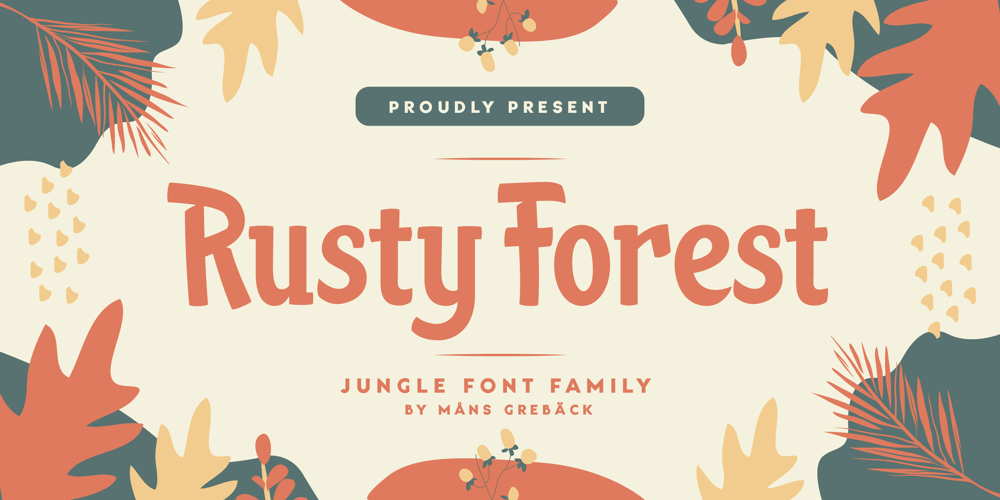
Rusty Forest Font Family was designed by Måns Grebäck and published by Mans Greback. Rusty Forest contains 4 styles and family package options. Rusty Forest is a typeface that takes you back to the days of golden design, when travel and adventure were celebrated in striking posters. This font’s rustic appearance, created by its brush-style strokes, evokes images of a cabin in the woods, surrounded by the beauty of nature. It’s as if you can smell the campfire smoke and hear the rustling of leaves in the wind.This font is perfect for designers looking to add a touch of vintage charm to their projects, whether it be a poster for a national park or a logo for a wilderness-themed brand. Its 1950s-inspired style will transport viewers back in time to a simpler era, where the call of the wild was all one needed to feel free.The Rusty Forest family includes Bold, Italic, Bold Italic, and Regular, offer a range of options to suit different design needs.The font is built with advanced OpenType functionality and has a guaranteed top-notch quality, containing stylistic and contextual alternates, ligatures and more features; all to give you full control and customizability. It has extensive lingual support, covering all Latin-based languages, from Northern Europe to South Africa, from America to South-East Asia. It contains all characters and symbols you’ll ever need, including all punctuation and numbers.